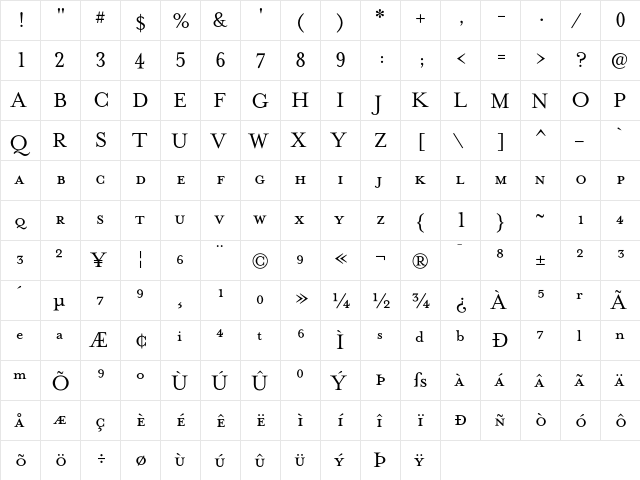
MrsEavesPetiteCaps PetiteCaps
Design Context for MrsEavesPetiteCaps Typeface
MrsEavesPetiteCaps takes a measured approach to typography — its balanced proportions and neutral character make it a reliable workhorse for both digital and print work.
Pro Tip: Pair MrsEavesPetiteCaps with a font of contrasting weight or personality to build a more expressive typographic hierarchy.